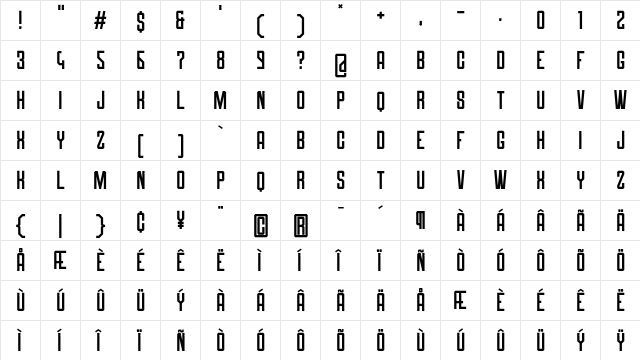
Roguedash Solid Regular
Design Context for Roguedash Solid Typeface
Roguedash Solid offers clean, dependable letterforms without strong stylistic allegiance, making it a practical choice for designers who need flexibility.
Pro Tip: Use Roguedash Solid in both headline and body roles to test its range before committing to a single application.